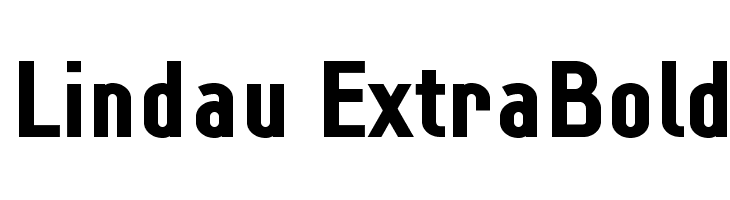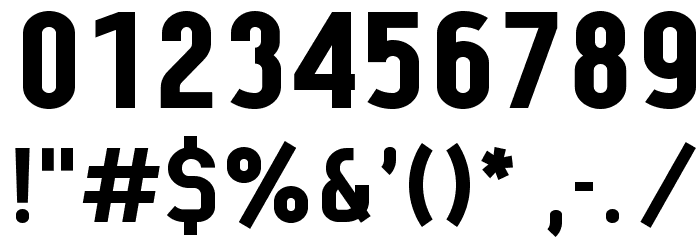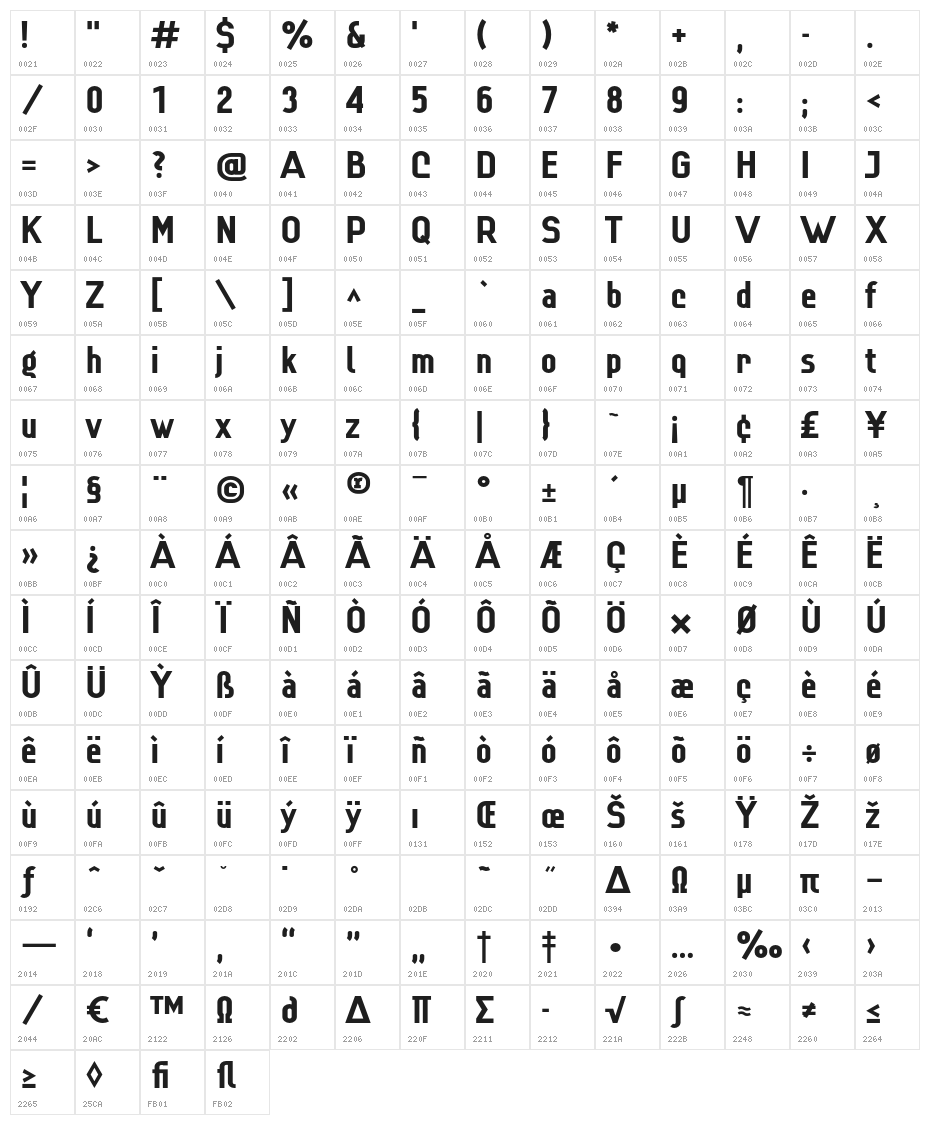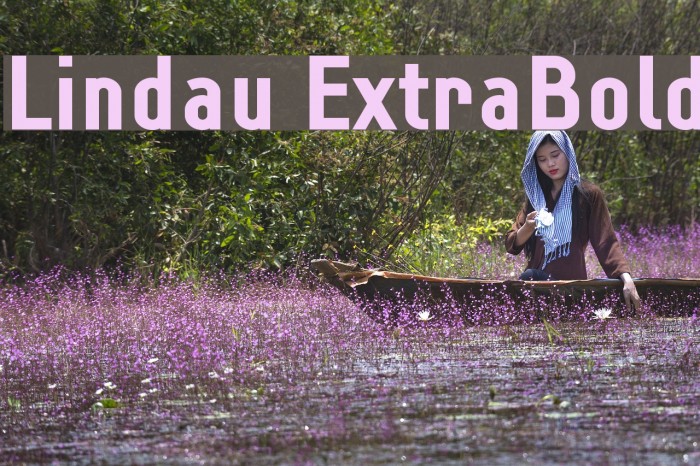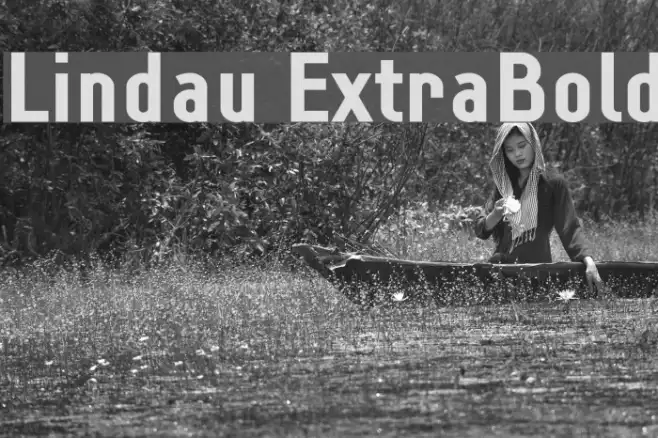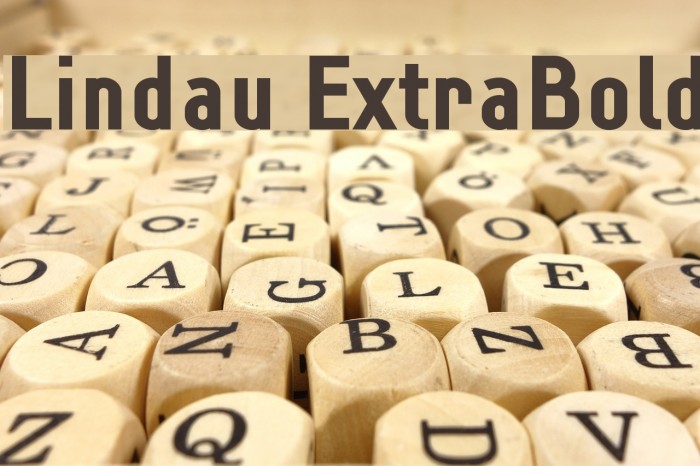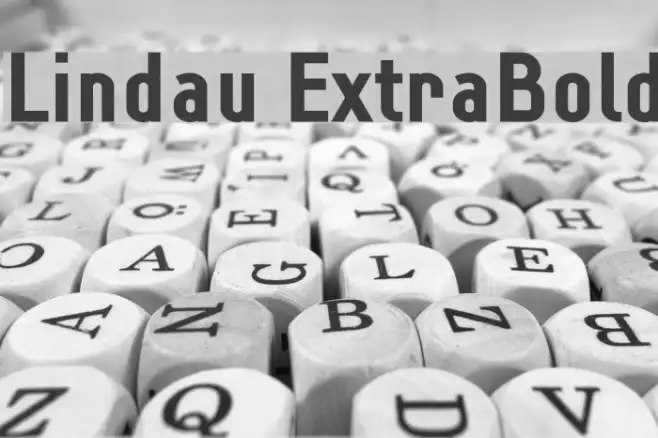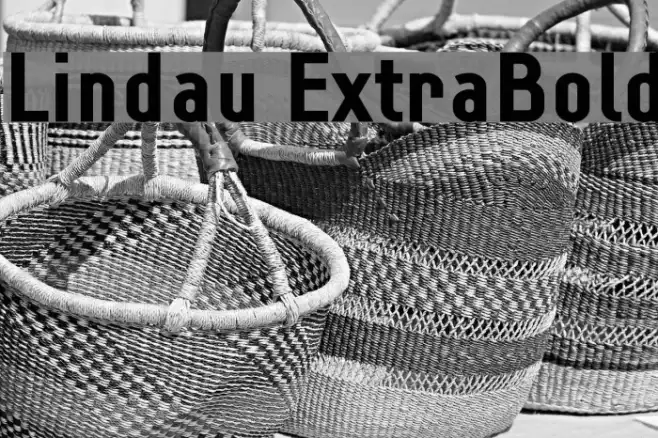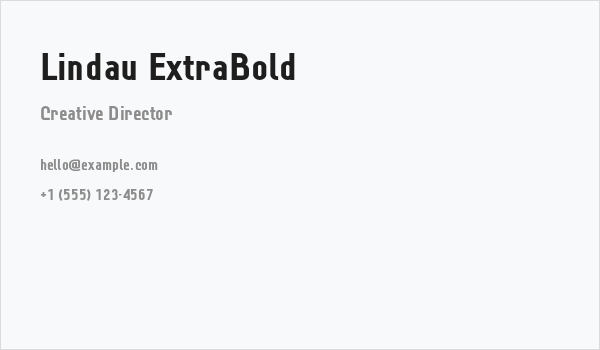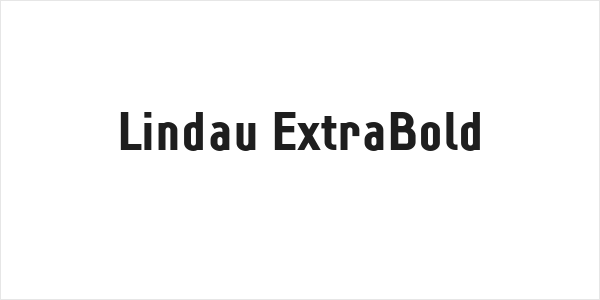
Lindau ExtraBold Font
Lindau ExtraBold Description
This font features a bold and assertive design with strong geometric shapes and clean lines. The uppercase letters are particularly striking, with a uniform height and width that create a sense of balance and stability. The lowercase letters maintain a similar geometric structure, offering a cohesive look across different cases. The numerals are equally bold, ensuring readability and impact. Special characters are well-integrated, maintaining the overall aesthetic. This font's design is modern and versatile, suitable for a variety of applications where clarity and boldness are desired.